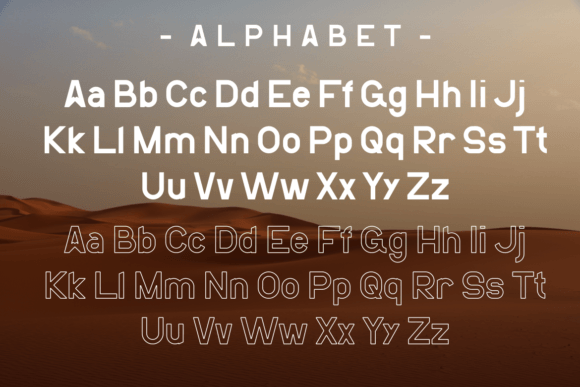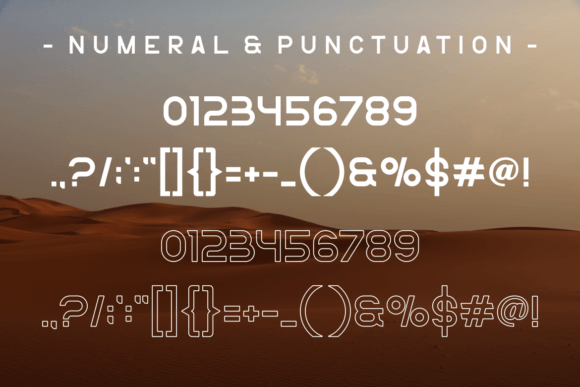
The Gadder Font: A Bold and Authentic Sans Serif for Your Creative Projects
I’ll never forget the time I was working on a logo design project for a trendy new coffee shop. My client wanted a bold, eye-catching font that would stand out on their packaging and merchandise. I spent hours scouring the internet for the perfect font, but nothing seemed quite right. That was until I stumbled upon the Gadder font. With its bold and authentic sans serif style, it was love at first sight! ✨
In this article, we’ll dive into the world of Gadder font, exploring its features, uses, and what makes it an excellent choice for designers, crafters, and creative hobbyists.
An Honest Review of Gadder Font
What I Love About Gadder Font
- ✅ Bold and authentic sans serif style: Gadder font is perfect for making a statement with your designs.
- ✨ Highly versatile: It can be used for a wide range of projects, from logos and t-shirt printing to product packaging and more.
- 🔥 Attention-grabbing: The bold style of Gadder font ensures that your designs will stand out in any context.
While Gadder font is an excellent choice for many projects, there are a few things to keep in mind: 🤔
- ⚠️ Limited use in body text: Due to its bold style, Gadder font may not be the best choice for large blocks of body text.
- ⚠️ May not be suitable for very small sizes: Gadder font can become a bit blurry or hard to read when scaled down to very small sizes.
The Backstory of Gadder Font
Gadder font was designed with the goal of creating a bold and authentic sans serif font that would stand out in any context. The designer, inspired by urban landscapes and modern typography, crafted Gadder font to be a versatile and attention-grabbing choice for designers and crafters.
Q: What is Gadder font best used for?
A: Gadder font is best used for bold and eye-catching designs, such as logos, t-shirt printing, product packaging, and more.
Q: Can I use Gadder font for body text?
A: While Gadder font can be used for body text, it may not be the best choice due to its bold style. It’s better suited for headings and titles.
Q: Is Gadder font suitable for small sizes?
A: Gadder font can become a bit blurry or hard to read when scaled down to very small sizes. It’s best used at larger sizes where its bold style can shine.